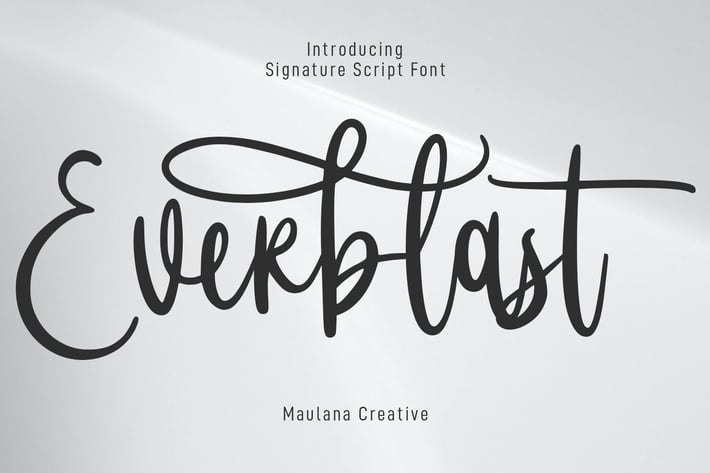
Everblast Calligraphy Script Font
Everblast is a modern script font. With light contrast stroke, fun character with a bit of ligatures and alternates. To give you an extra creative work. Everblast font support multilingual more than 100+ language. This font is good for logo design, Social media, Movie Titles, Books Titles, a short text even a long text letter and good for your secondary text font with sans or serif. Make a stunning work with Everblast font.